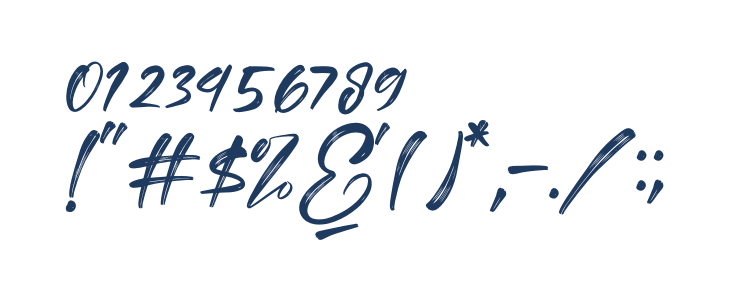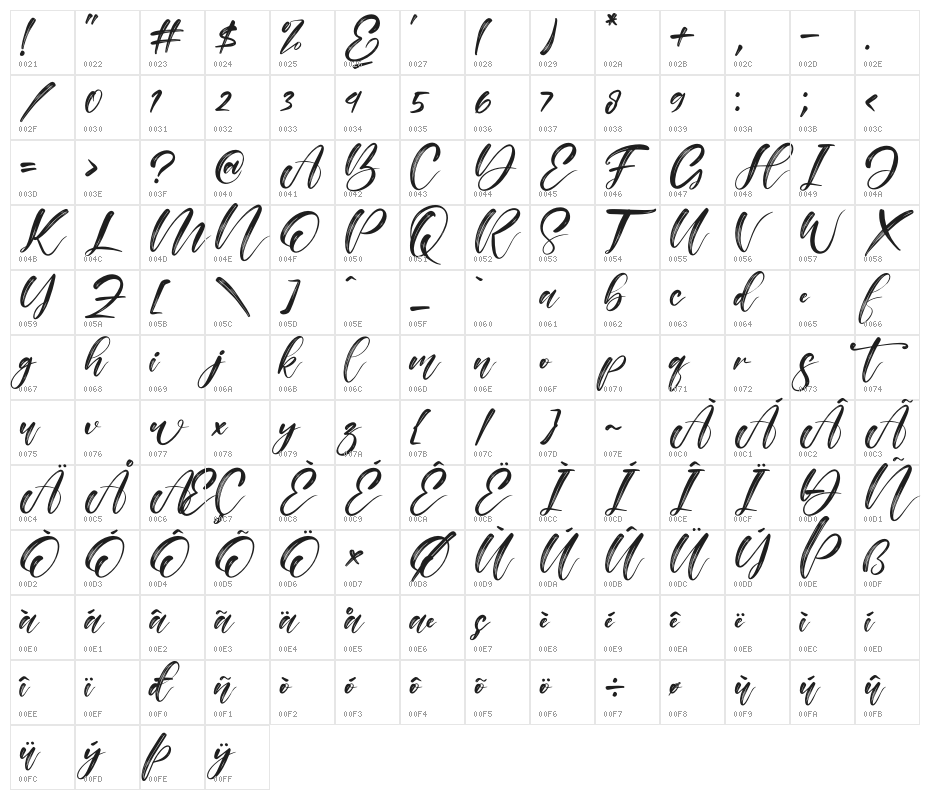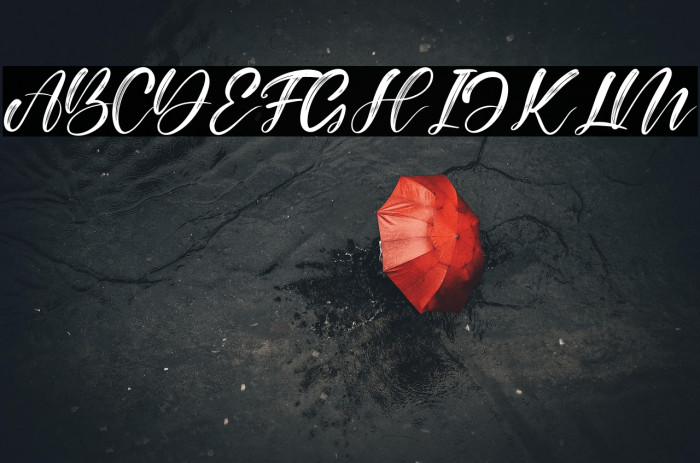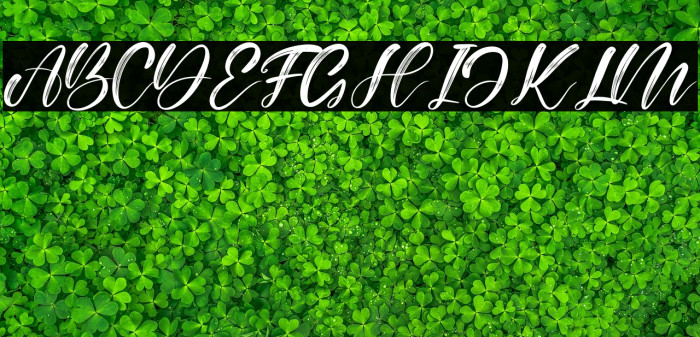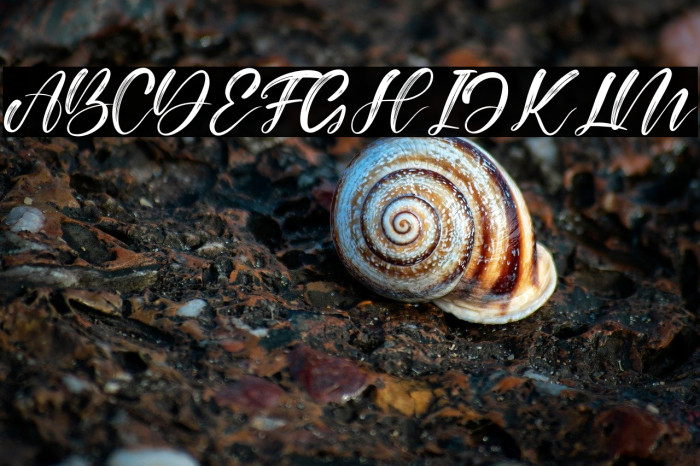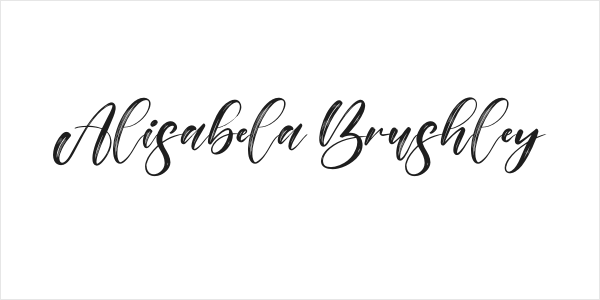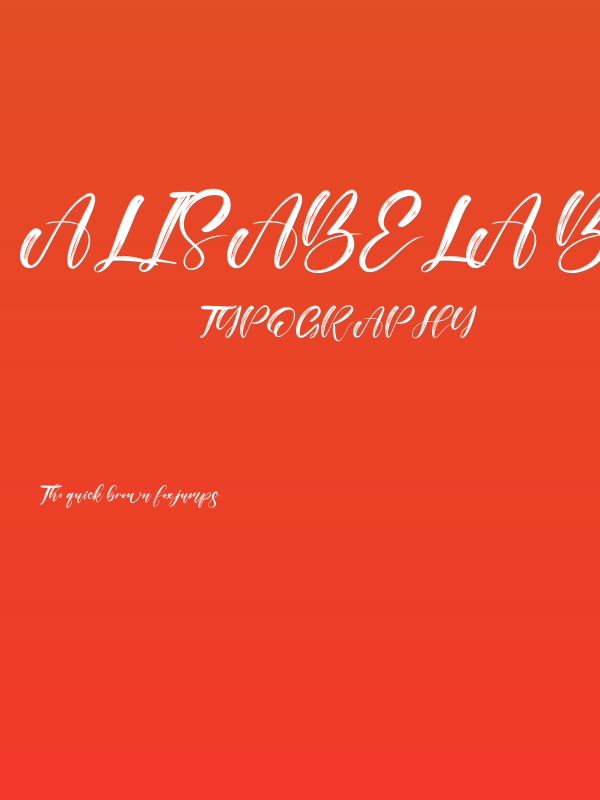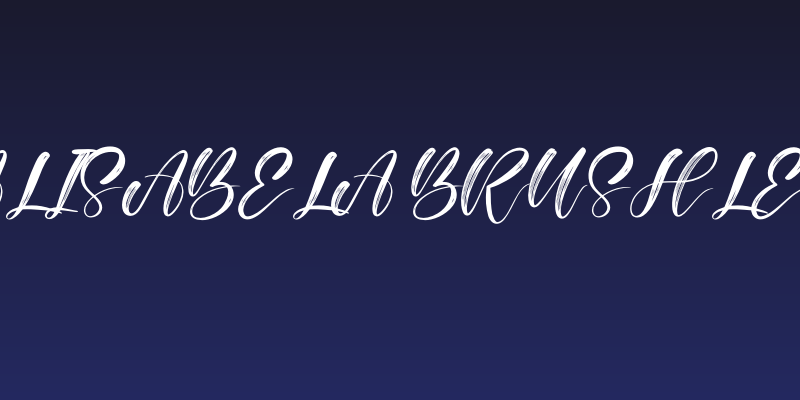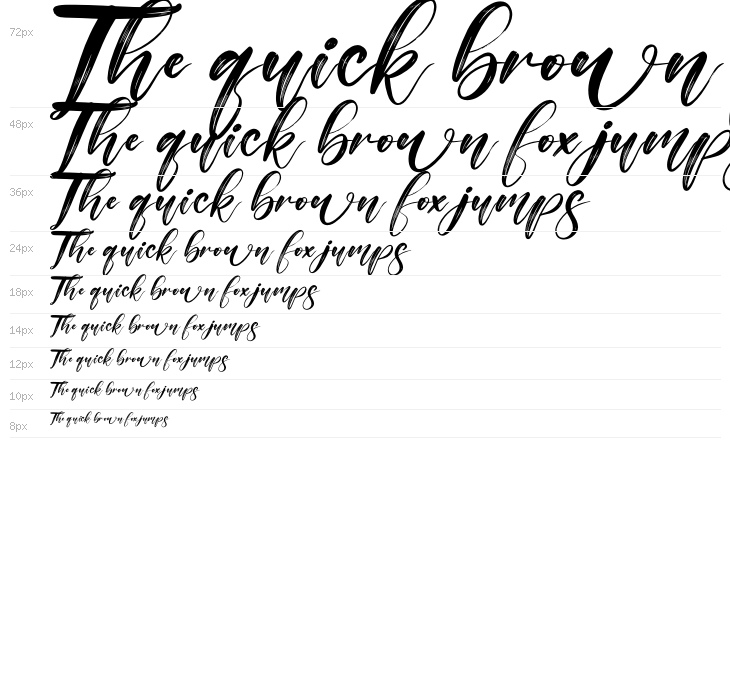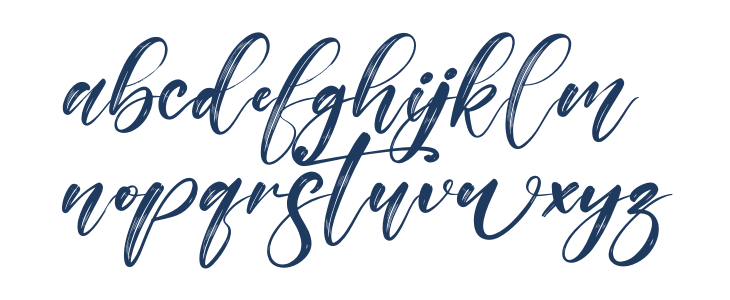
Alisabela Brushley Font
Alisabela Brushley Description
This font exudes a lively and expressive character, with its bold and flowing script style. The letters are crafted with sweeping strokes and a dynamic flair, giving it a handwritten appearance. The uppercase letters are elegant and slightly slanted, while the lowercase letters maintain a consistent rhythm with their fluid connections. The numerals and special characters are equally expressive, maintaining the overall aesthetic of the font. This font is perfect for adding a personal touch to any design, making it ideal for creative projects that require a sense of movement and personality.